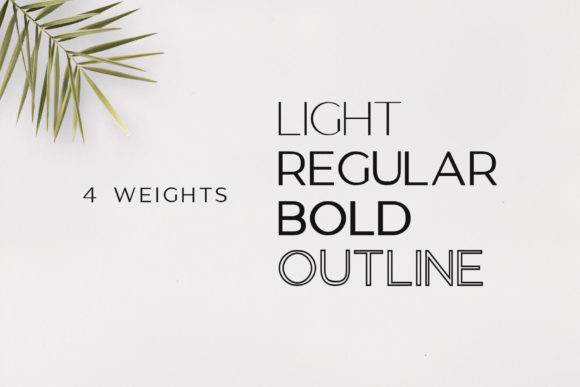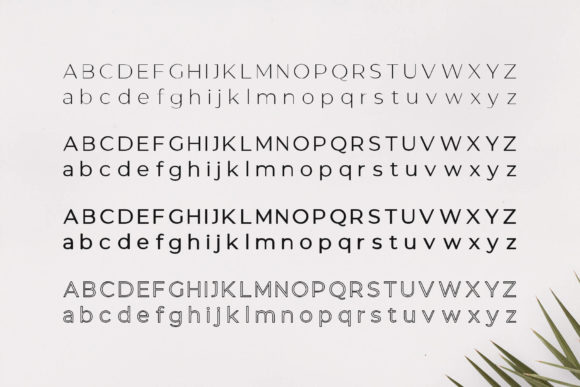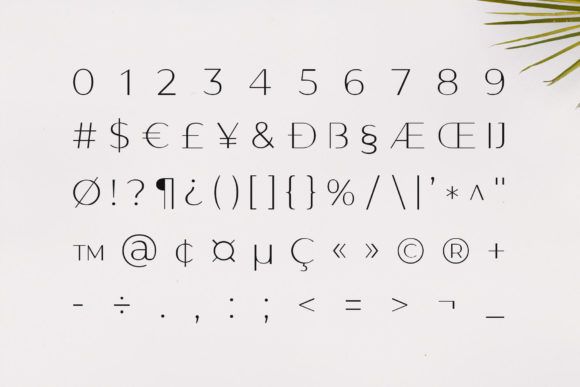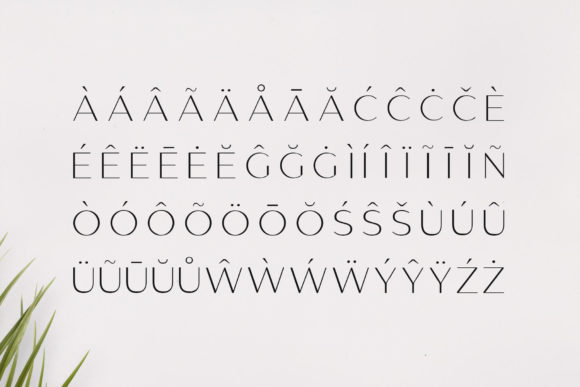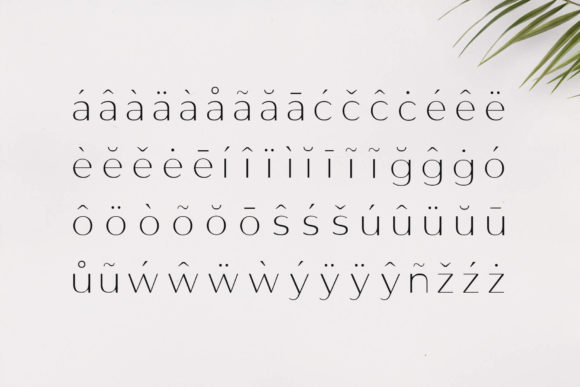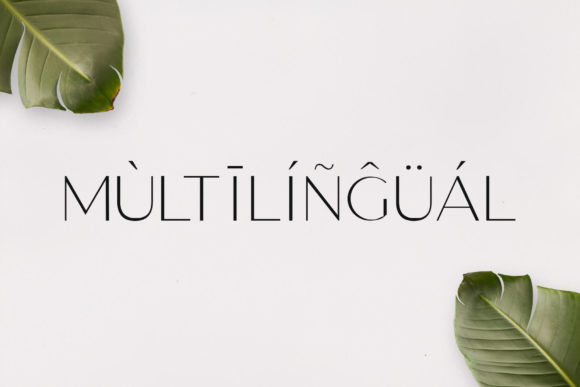
Gantic Font: Elevate Your Designs with Elegance and Sophistication
In the world of typography, a font can make or break a design. For designers and crafters looking to add a touch of elegance and sophistication to their work, Gantic Font is an excellent choice. This incredibly elegant and sophisticated sans serif font is designed to lend an editorial feel to any design idea, making it perfect for those seeking to elevate their typography.
The Characteristics of Gantic Font
Gantic Font boasts a range of characteristics that set it apart from other sans serif fonts. Its clean lines, precise curves, and carefully crafted letterforms create a sense of luxury and refinement. The font’s elegant appearance is balanced by its versatility, making it suitable for a wide range of design applications, from branding and advertising to packaging and digital media.
Key Features of Gantic Font
- Elegant and sophisticated design: Gantic Font’s sleek and refined appearance makes it perfect for designs that require a touch of luxury.
- Versatile: The font’s versatility ensures it can be used in a variety of design applications, from print to digital media.
- Editorial feel: Gantic Font’s editorial feel makes it ideal for designs that require a sense of sophistication and refinement.
- Easy to read: The font’s clear and precise letterforms ensure excellent readability, even at smaller font sizes.
Using Gantic Font in Your Designs
Gantic Font can be used in a variety of design applications, including:
- Branding and advertising: Use Gantic Font to create elegant and sophisticated brand identities that exude luxury and refinement.
- Packaging design: Add a touch of elegance to your packaging designs with Gantic Font, perfect for high-end products and luxury brands.
- Digital media: Use Gantic Font in your digital designs, such as website headers, social media graphics, and email marketing campaigns.
- Print design: Gantic Font is perfect for print designs, including brochures, flyers, and business cards.
Tips for Getting the Most Out of Gantic Font
To get the most out of Gantic Font, consider the following tips:
- Use it sparingly: Gantic Font’s elegance and sophistication can be overwhelming if overused. Use it sparingly to create a sense of luxury and refinement.
- Experiment with font sizes: Gantic Font’s versatility allows it to be used at a range of font sizes. Experiment with different sizes to find the perfect balance for your design.
- Pair it with complementary fonts: Pair Gantic Font with complementary fonts to create a unique and visually appealing typography combination.
Gantic Font is an incredibly elegant and sophisticated sans serif font that can elevate any design idea with its editorial feel. With its versatile design, precise letterforms, and elegant appearance, Gantic Font is perfect for designers and crafters looking to add a touch of luxury and refinement to their work. By following the tips outlined above, you can get the most out of Gantic Font and create stunning designs that exude elegance and sophistication.
Whether you’re a seasoned designer or a crafter looking to elevate your typography, Gantic Font is an excellent choice. With its wide range of applications and versatility, Gantic Font is sure to become a staple in your design toolkit.